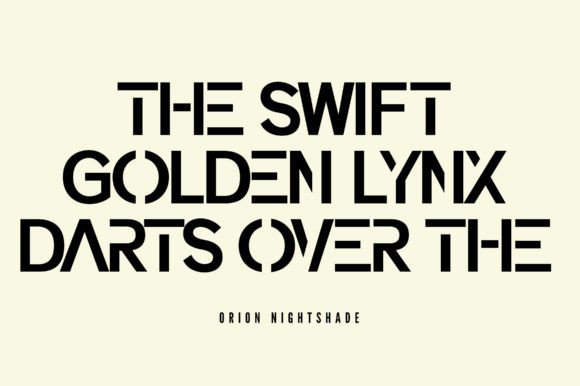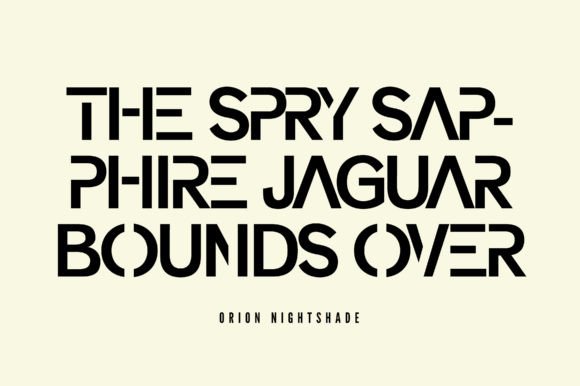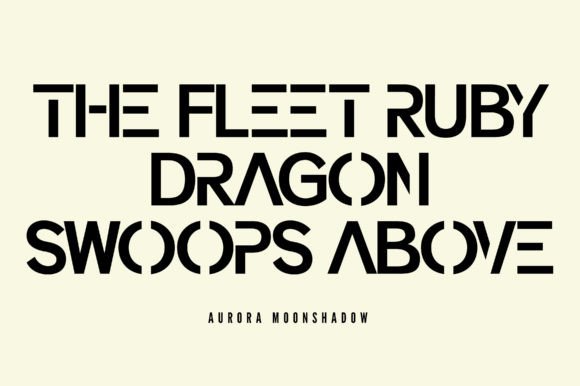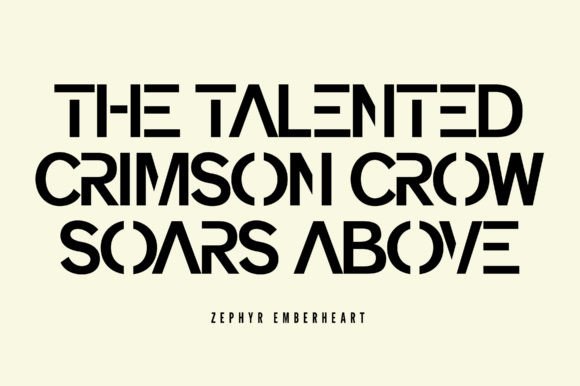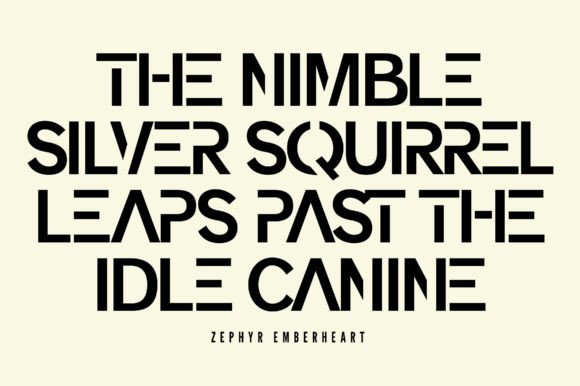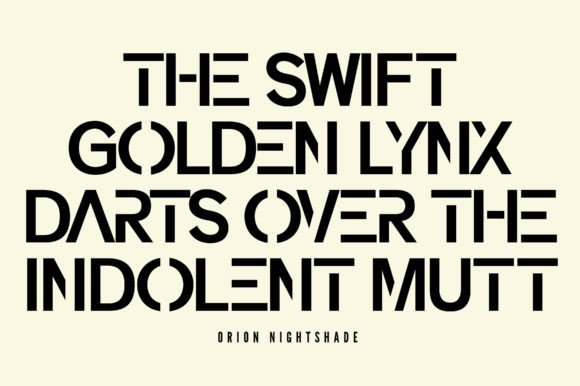
Introducing Eneki Font: The Epitome of Modern Elegance
In the realm of typography, few fonts have managed to capture the essence of modern elegance as effortlessly as Eneki Font. This minimalist, chic, and modern sans serif grotesque typeface has been making waves in the design community, and for good reason. Eneki’s sleek lines, balanced design, and versatile nature make it an ideal choice for a wide range of projects, from professional presentations to eye-catching logos and marketing materials.
The Design Philosophy Behind Eneki
Eneki’s design philosophy revolves around the concept of timeless simplicity and sophistication. Its creators aimed to craft a font that would exude a sense of refinement and elegance, without being too ornate or over-the-top. The result is a typeface that is both modern and classic, with a unique charm that sets it apart from more traditional fonts.
Key Features of Eneki Font
• Minimalist Design: Eneki’s sleek and streamlined design makes it perfect for projects where simplicity and elegance are paramount.
• Versatility: With a wide range of weights and styles, Eneki offers effortless customization, allowing designers to adapt it to various projects and applications.
• Balanced Design: Eneki’s balanced design ensures that it looks great in both digital and print formats, making it a versatile choice for designers.
• Modern Aesthetic: Eneki’s modern sans serif grotesque design gives it a fresh and contemporary feel that’s perfect for projects that require a modern twist.
Applications of Eneki Font
Eneki’s versatility makes it an excellent choice for a wide range of applications, including:
• Professional Presentations: Eneki’s sleek design and balanced aesthetic make it perfect for presentations that require a professional and sophisticated look.
• Logo Design: Eneki’s unique charm and modern aesthetic make it an excellent choice for logo design, allowing businesses to create a lasting impression.
• Marketing Materials: Eneki’s versatility and range of weights and styles make it perfect for marketing materials, such as brochures, flyers, and posters.
• Digital Platforms: Eneki’s modern design and balanced aesthetic make it an excellent choice for digital platforms, including websites, social media, and mobile apps.
Why Choose Eneki Font?
With so many fonts available, why choose Eneki? Here are a few compelling reasons:
• Refined Aesthetics: Eneki’s modern elegance and sophisticated design make it perfect for designers who want to create refined and aesthetically pleasing designs.
• Effortless Customization: Eneki’s range of weights and styles makes it easy to customize and adapt to various projects and applications.
• Timeless Appeal: Eneki’s timeless simplicity and sophistication ensure that it will remain a popular choice for designers for years to come.
Unlocking the Potential of Eneki Font
As we head into the summer season, Eneki Font is the perfect choice for designers looking to elevate their designs and create something truly special. Whether you’re working on a professional presentation, a logo design, or a marketing campaign, Eneki’s captivating charm and modern elegance are sure to make your project stand out.
So why not give Eneki Font a try? With its versatility, range of weights and styles, and timeless appeal, it’s the perfect choice for designers who want to create refined and aesthetically pleasing designs that will leave a lasting impression.
In conclusion, Eneki Font is a game-changer for designers who want to create modern, elegant, and sophisticated designs. Its unique charm, versatility, and range of weights and styles make it an excellent choice for a wide range of applications. So go ahead, unlock the potential of Eneki Font, and elevate your designs to new heights.